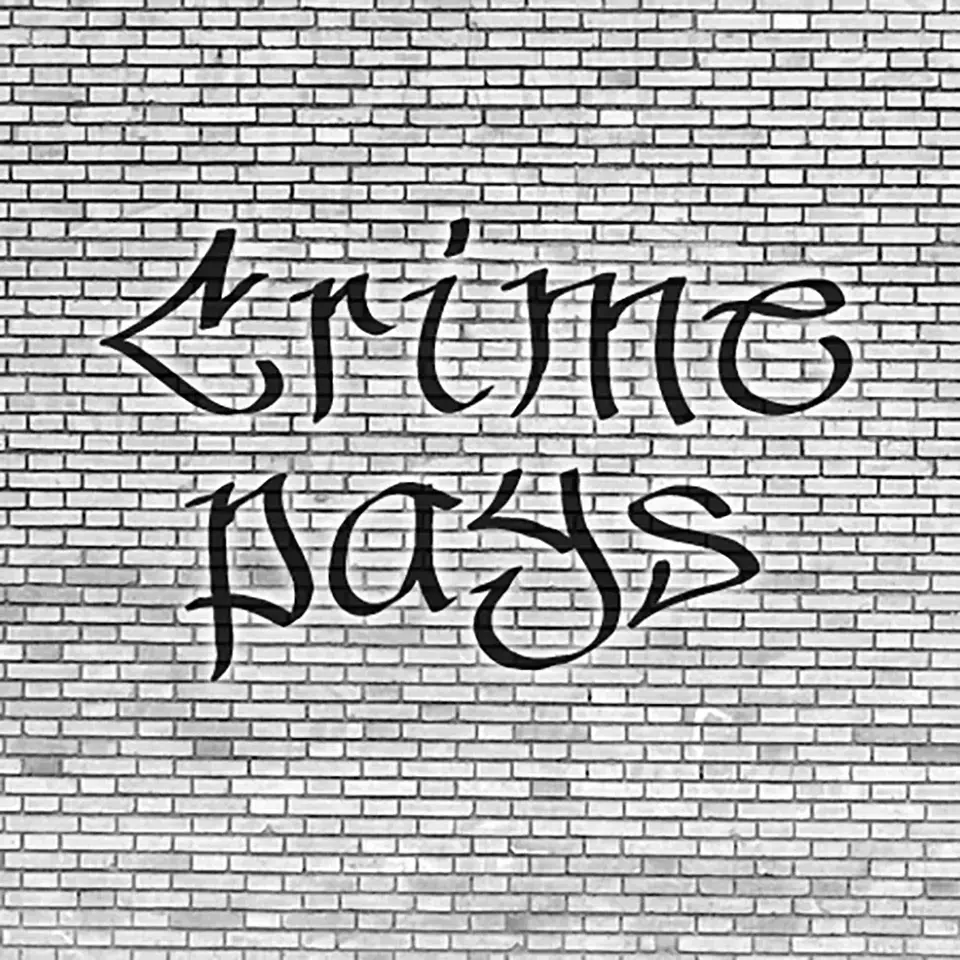
Hinterwelt Font
Hinterwelt is a distinctive script typeface created by Swiss designer Lukas Schiltknecht. This graffiti-inspired font features dynamic, angular letterforms with sharp points and exaggerated curves, delivering an edgy urban aesthetic perfect for creative typography projects. Combining handwritten elegance with street art sensibilities, Hinterwelt brings contemporary flair to headlines, posters, and display designs. With 206 glyphs and support for accented characters and Euro symbol, this versatile font operates optimally at 25pt and larger sizes, making it ideal for bold, impactful visual communications.